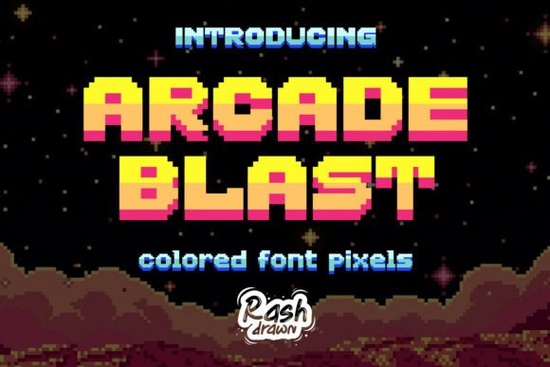
If you're looking for a retro pixel font that works right out of the box no layering, no gradient building, no tedious manual coloring Arcade Blast Font is one of the most practical color fonts available for designers who love 80s and 90s arcade energy. It’s not just a collection of pixel-style letters; it’s an OpenType-SVG color font with built-in vibrant gradients, so every character appears bold, lively, and instantly nostalgic when you type.
What makes Arcade Blast different from other pixel fonts?
Most retro fonts are monochrome outlines or require heavy editing to get that authentic arcade glow. Arcade Blast skips the extra steps. Each letter comes with its own pre-designed gradient think neon pinks, electric blues, and sunny yellows that mimics the look of vintage cabinet screens. And because it’s an SVG color font, those colors stay crisp at any size, whether you’re designing a tiny Twitch banner or a large streetwear tee.
Who actually uses this font and how?
Small business owners creating retro-themed event posters often choose Arcade Blast for headlines that pop without needing graphic effects. Print-on-demand sellers use it on hoodies and enamel pins where high-contrast, legible, and playful typography stands out in crowded marketplaces. Streamers and YouTubers rely on it for thumbnails and overlays because it reads clearly even at small sizes and feels authentically “game-y” without trying too hard.
Designers working on multilingual branding appreciate that Arcade Blast includes accented characters for Spanish, French, German, Portuguese, and more so it’s ready for international campaigns without swapping fonts mid-project. It covers uppercase, lowercase, numbers, punctuation, and common symbols, making it usable for full sentences not just logos or short slogans.
How does it compare to other colorful retro fonts?
Arcade Blast sits comfortably between fun and functional. Unlike some novelty pixel fonts that sacrifice readability for style, it keeps letterforms clear and spaced for real-world use. If you’ve tried Sugar Daisies Font, you’ll notice Arcade Blast leans harder into gaming nostalgia, while Sugar Daisies brings a softer, hand-drawn floral vibe. For something more polished and fashion-forward, Preppy Coquette offers elegant script energy but Arcade Blast fills the niche where boldness, color, and instant impact matter most.
It’s worth noting that true OpenType-SVG color fonts like Arcade Blast Font are still relatively rare in the wild especially ones with this level of multilingual coverage and production-ready vector backups. That makes it a dependable choice if you want consistency across platforms and projects.
Before you download: A quick checklist
- ✅ You’re using Illustrator CC 2018+, Photoshop CC 2017+, InDesign CC 2019+, Canva, or macOS native apps
- ✅ Your project benefits from built-in gradients no time to build custom ones
- ✅ You’re designing for English + European languages (accents supported)
If those boxes line up, Arcade Blast gives you retro charm without the usual setup friction just open your app, type, and go.